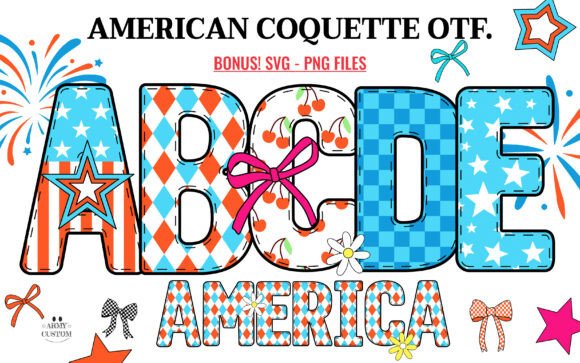
Unleashing Patriotic Flair with the American Coquette Font
A Font that Embodies Patriotism
True to its name, the American Coquette Font captures the essence of Memorial Day America in every curve and line. This uniquely designed font is inspired by the heart of the United States, embodying the charm and spirit of American aesthetics. It’s not just a font; it’s a tribute to the Land of the Free, brought to life through typography.
• ✨ Patriotic vibe: This font screams American pride, making it perfect for Memorial Day, Independence Day, or any patriotic-themed project.
• ✅ Elegant yet playful: The American Coquette Font strikes a beautiful balance between sophistication and whimsy, suitable for various design applications.
• 💫 High-quality design: The font’s creator has done an amazing job crafting a clean, crisp, and highly legible design.
While the American Coquette Font is amazing, there are a few things to keep in mind: ⚠️ limited language support and a relatively steep learning curve for mastering its OpenType features and glyphs.
The Designer Inspiration Behind American Coquette Font
The American Coquette Font was created by a talented designer who wanted to capture the essence of American patriotism. Inspired by classic American typography, the designer aimed to create a font that would evoke feelings of freedom, courage, and joy. The result is a beautiful, unique font that embodies the spirit of the United States.
Q: What makes the American Coquette Font unique?
A: The American Coquette Font is unique due to its patriotic vibe, elegant yet playful design, and high-quality craftsmanship.
Q: Is the American Coquette Font suitable for body text?
A: While the American Coquette Font is beautiful, it’s better suited for headlines, titles, and short paragraphs. For body text, consider using a more traditional serif font.